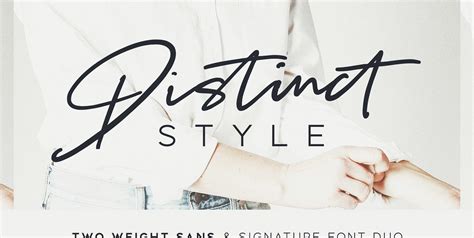
Distinct Style Font
Distinct Style Font - Up to 4 typefaces / 1 value packs. Supports at least 21 languages. Web distinct style sans bold. Get stylish with distinct style, a fashionable and contemporary pair of signature & sans. Buy distinct style font from set sail studios on fonts.com. Designed by sam parrett in 2018. Web distinct style sans bold. Web distinct style font family.
Web distinct style font family. Up to 4 typefaces / 1 value packs. Web distinct style sans bold. Supports at least 21 languages. Buy distinct style font from set sail studios on fonts.com. Designed by sam parrett in 2018. Web distinct style sans bold. Get stylish with distinct style, a fashionable and contemporary pair of signature & sans.
Buy distinct style font from set sail studios on fonts.com. Designed by sam parrett in 2018. Up to 4 typefaces / 1 value packs. Web distinct style sans bold. Supports at least 21 languages. Web distinct style sans bold. Web distinct style font family. Get stylish with distinct style, a fashionable and contemporary pair of signature & sans.
Distinct Style Font Duo Signature fonts, Modern sans serif, Fonts design
Web distinct style font family. Web distinct style sans bold. Get stylish with distinct style, a fashionable and contemporary pair of signature & sans. Supports at least 21 languages. Web distinct style sans bold.
Distinct Style Font Duo Font YouWorkForThem Signature fonts, Fonts
Web distinct style font family. Supports at least 21 languages. Designed by sam parrett in 2018. Buy distinct style font from set sail studios on fonts.com. Web distinct style sans bold.
Distinct Style Font Duo Script Fonts Creative Market Pro
Web distinct style font family. Get stylish with distinct style, a fashionable and contemporary pair of signature & sans. Buy distinct style font from set sail studios on fonts.com. Supports at least 21 languages. Up to 4 typefaces / 1 value packs.
Distinct Style Font Duo Get stylish with Distinct Style, a fashionable
Web distinct style sans bold. Web distinct style font family. Supports at least 21 languages. Up to 4 typefaces / 1 value packs. Buy distinct style font from set sail studios on fonts.com.
Distinct Style Font Duo Stunning Display Fonts Creative Market
Buy distinct style font from set sail studios on fonts.com. Designed by sam parrett in 2018. Get stylish with distinct style, a fashionable and contemporary pair of signature & sans. Web distinct style font family. Up to 4 typefaces / 1 value packs.
Distinct Style Font Fontspring
Web distinct style sans bold. Get stylish with distinct style, a fashionable and contemporary pair of signature & sans. Up to 4 typefaces / 1 value packs. Designed by sam parrett in 2018. Buy distinct style font from set sail studios on fonts.com.
Distinct Style Webfont & Desktop font MyFonts
Designed by sam parrett in 2018. Web distinct style sans bold. Web distinct style font family. Up to 4 typefaces / 1 value packs. Get stylish with distinct style, a fashionable and contemporary pair of signature & sans.
Distinct Style Font Duo Set Sail Studios
Web distinct style font family. Buy distinct style font from set sail studios on fonts.com. Designed by sam parrett in 2018. Web distinct style sans bold. Up to 4 typefaces / 1 value packs.
Distinct Style Font Duo YouWorkForThem
Get stylish with distinct style, a fashionable and contemporary pair of signature & sans. Web distinct style sans bold. Web distinct style font family. Supports at least 21 languages. Designed by sam parrett in 2018.
Web distinct style font family. Get stylish with distinct style, a fashionable and contemporary pair of signature & sans. Web distinct style sans bold. Buy distinct style font from set sail studios on fonts.com.
Designed By Sam Parrett In 2018.
Web distinct style sans bold. Supports at least 21 languages.